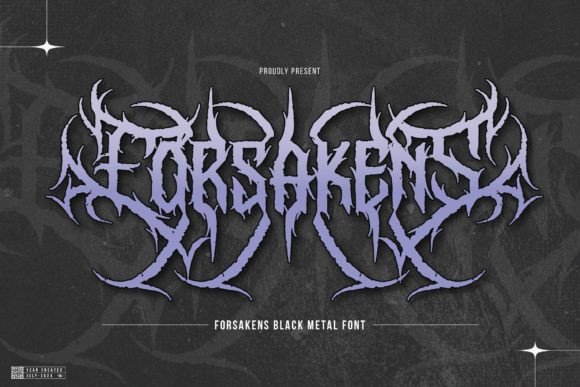
Forsakens Font: Unveiling the Dark, Intense Music of a Black Metal Band
Forsakens Font: A Symbol of Darkness
Forsakens Font is a distinctive and recognizable symbol of the band’s dark, intense music. The font is often used in their album artwork and merchandise, and has become synonymous with the band’s brand.
The Forsakens Font is a custom-designed font that’s been tailored to reflect the band’s music and aesthetic. It’s a key part of their visual identity, and is often used to create a sense of foreboding and unease.
Forsakens is a black metal band that’s making waves in the music scene with their dark, intense sound. Their music explores themes of darkness, nature, and melancholy, and is characterized by fast guitar riffs, powerful drums, and deep, growling vocals.
The Forsakens Font is a symbol of the band’s dark, intense music, and is a key part of their visual identity. Whether you’re a fan of black metal or just discovering the genre, Forsakens is definitely worth checking out.